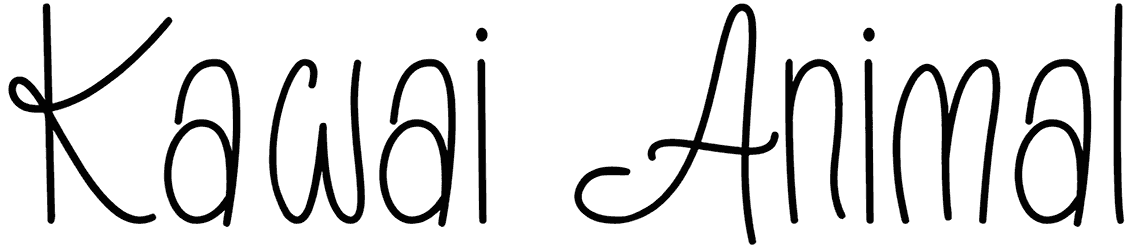
Kawai Animal Font
If you are looking for a kawaii font that conveys a sweet, charming sense, Kawai Animal is yours. It comes with a full set of characters that are easy to read in the context. You can use it in a variety of designs, such as book covers, holiday events, greeting cards, birthday party invitations, and other playful projects.